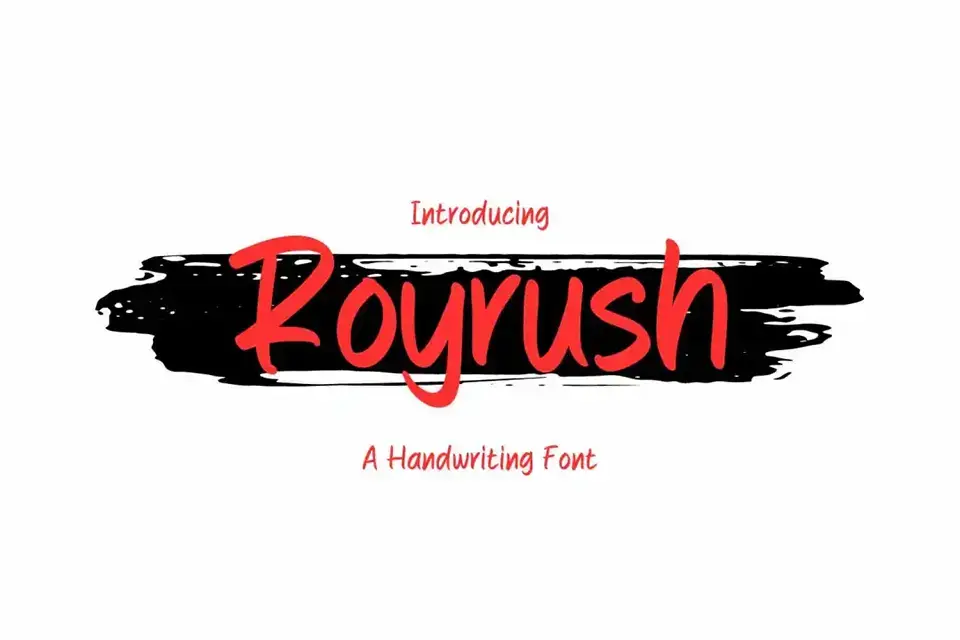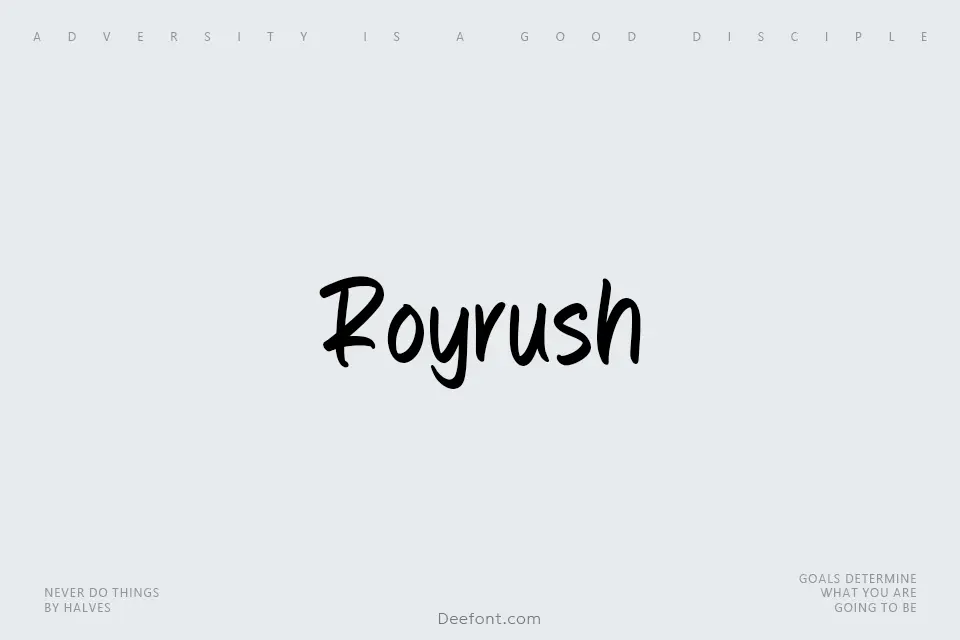
Royrush Font
Royrush is a sophisticated script font designed by MJType, featuring fluid strokes and a contemporary calligraphic style. Its natural, handwritten aesthetic makes it an excellent choice for wedding invitations, luxury branding, and signature logos. With a bouncy baseline and elegant curves, this typeface adds a personal, high-end touch to social media graphics, packaging, and creative headlines.